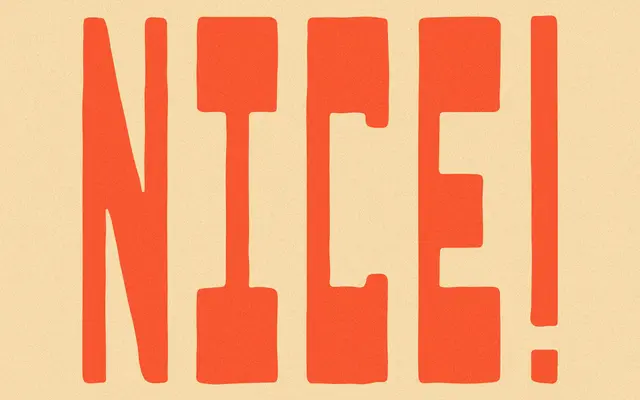
Juntos
A bold, textured hand-drawn display typeface made in collaboration with a salon, available in rough and clean cuts.
Created in collaboration between Taylor Penton and Abraham of Sabio Salon, Juntos comes in two OTF files: a rough version with hand-drawn texture and a clean version for smoother applications. The character set covers 161 glyphs including basic Latin and a limited range of accented characters. Priced at $25 with a broad single commercial licence covering logos, packaging and web use.
A bold, quirky hand-drawn display typeface with a rough texture variant and a clean version, designed for decorative and branding use rather than extended text setting.